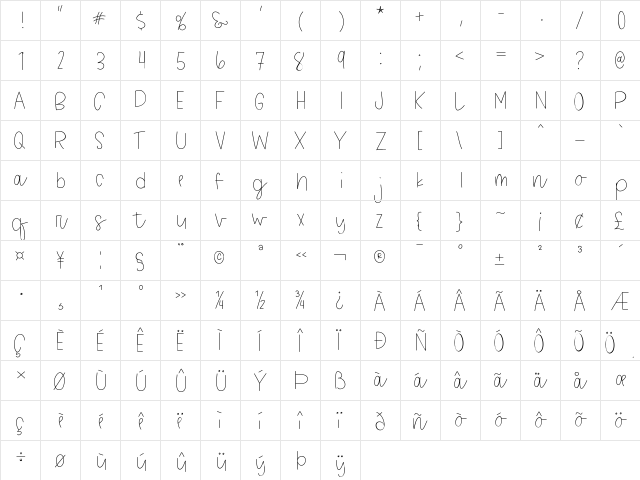
Tough Cookies Medium
Design Context for Tough Cookies Typeface
Tough Cookies is a composed and adaptable typeface that performs quietly and consistently across a wide range of design contexts.
Pro Tip: Pair Tough Cookies with a font of contrasting weight or personality to build a more expressive typographic hierarchy.